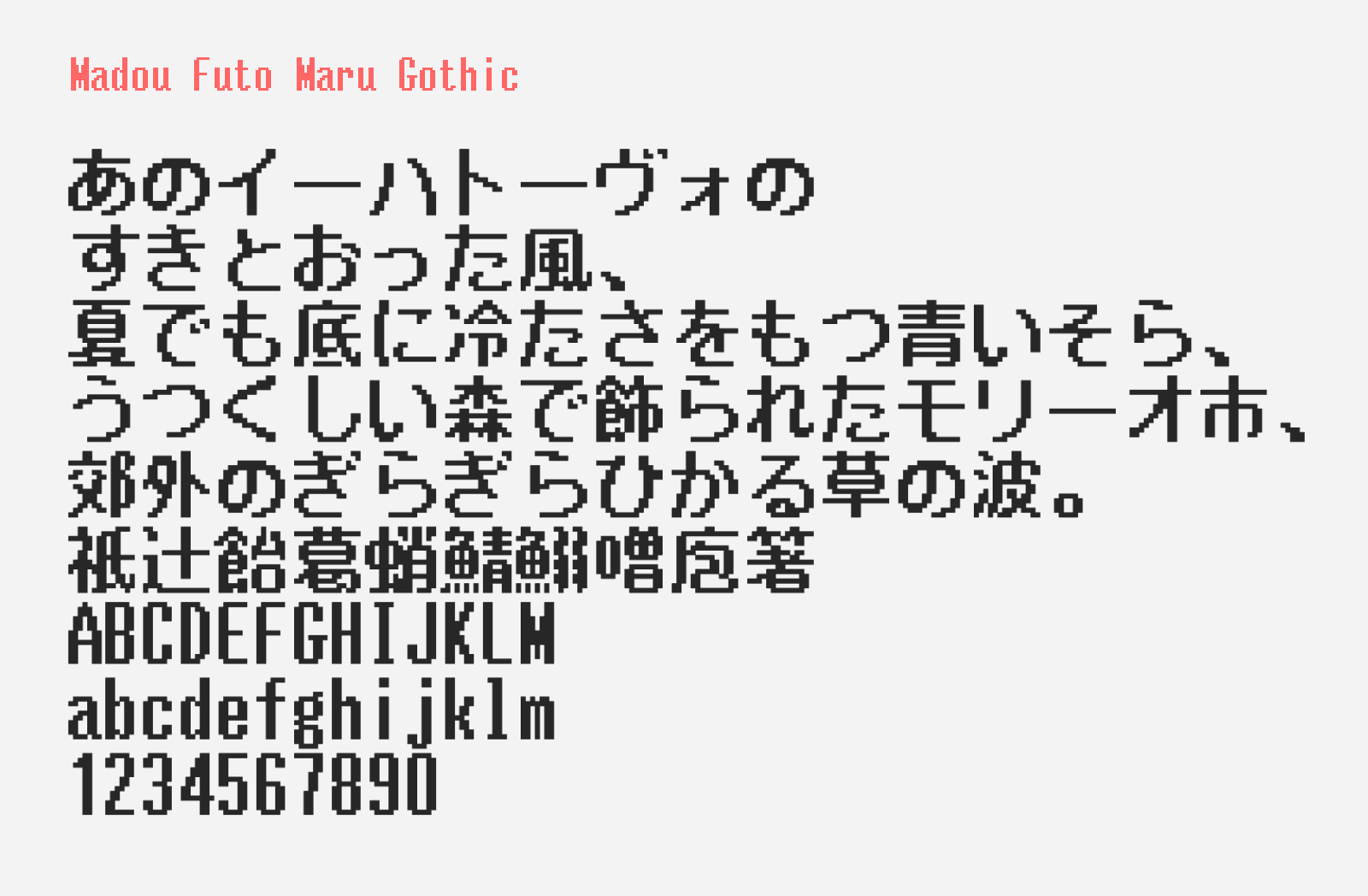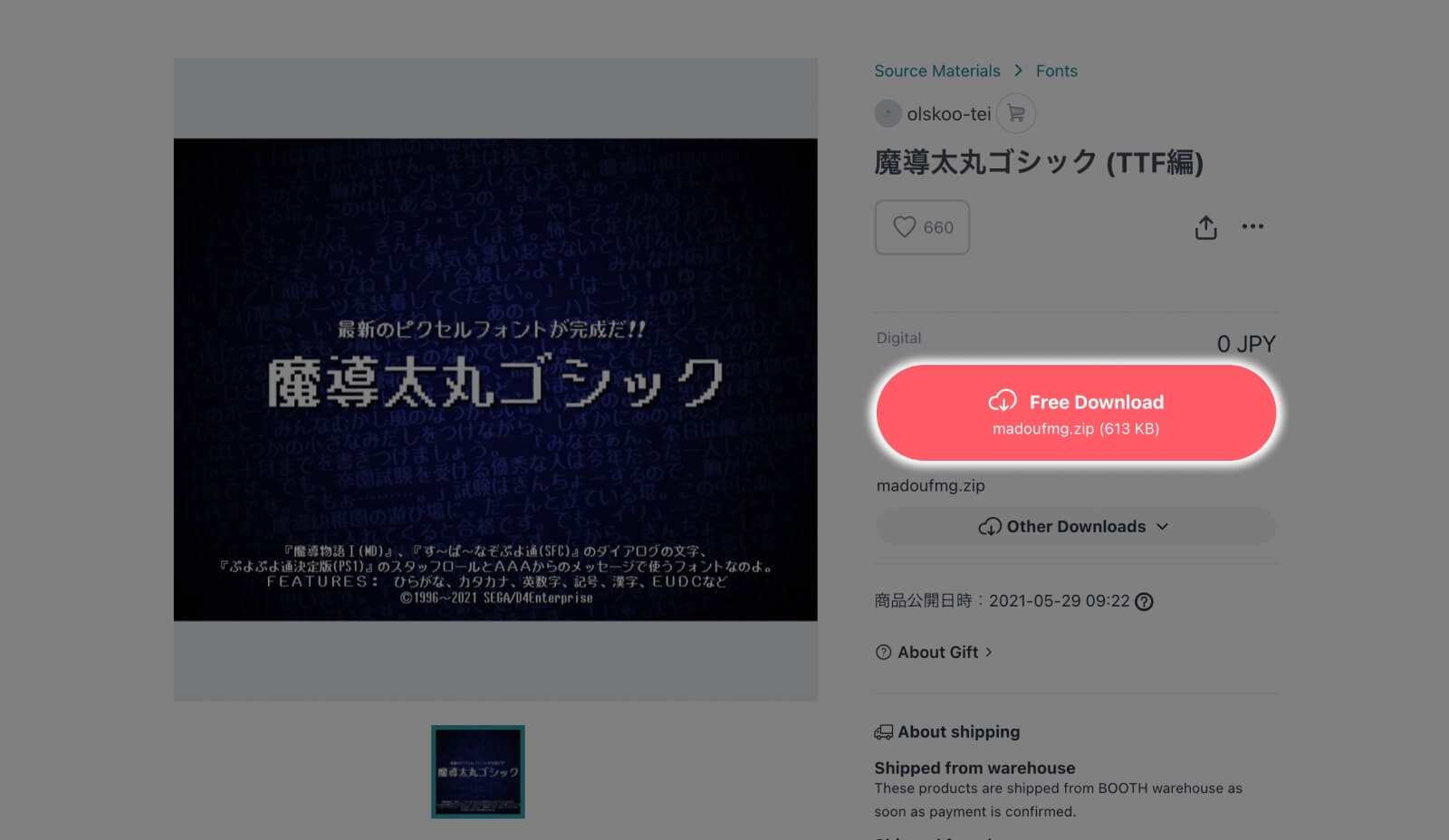
Madou Futo Maru Gothic
Madou Futo Maru Gothic (魔導太丸ゴシック) is a neat looking, medium bold pixel style Japanese font you can download for free. It has been used in several Japanese games for in-game dialogs and end credits. The strokes are slightly thickened and constructed with a larger grid base so that it’s accommodating for complex kanji characters, making it easier to read on both large and small text size.
Madou Futo Maru Gothic comes with kana characters with large kanji library. I can’t find any official details of the kanji level support, but from my investigation it fully supports JIS Level 1, Level 2 and IBM extended characters. Besides that, Latin, Greek and Cyrillic scripts are supported as well. You can download this font for free for personal and commercial use.
- Hiragana and Katakana
- Kanji (JIS Level 1 + Level 2 + IBM Extended)
- Alphanumerics
- Latin, Cyrillic and Greek script
- Symbols and Punctuations